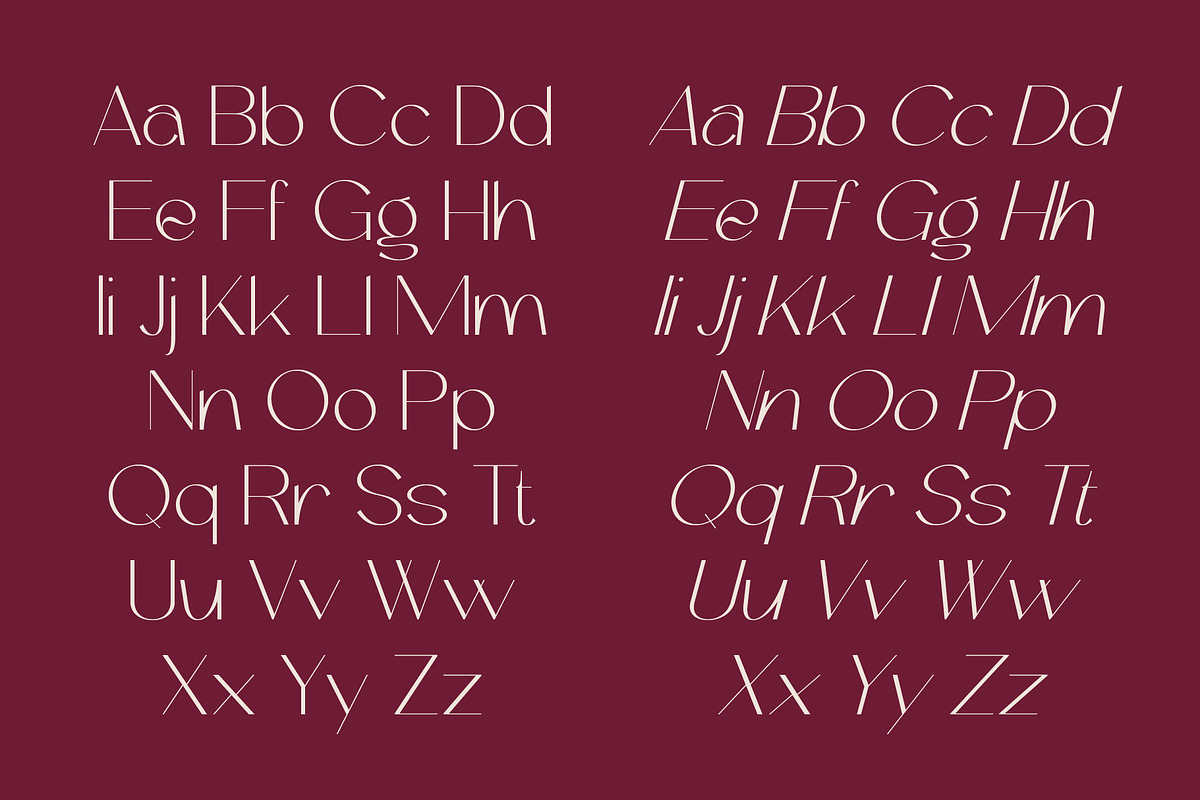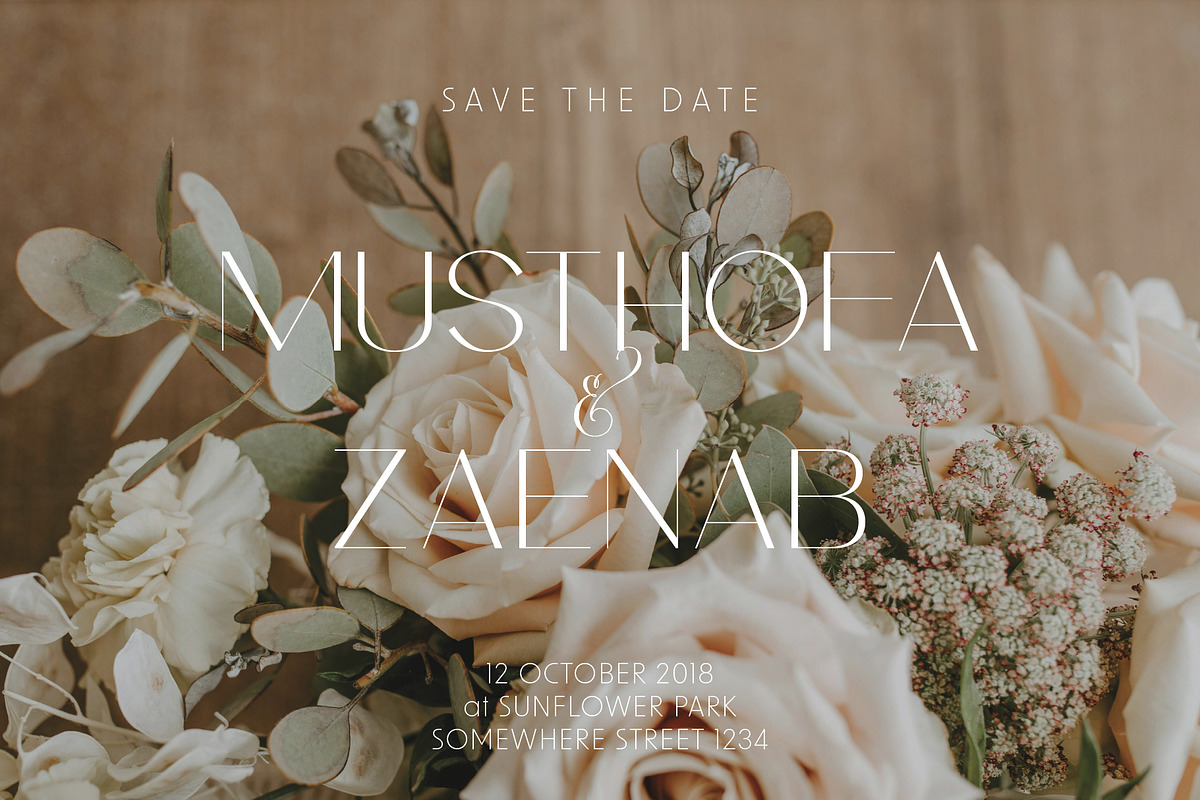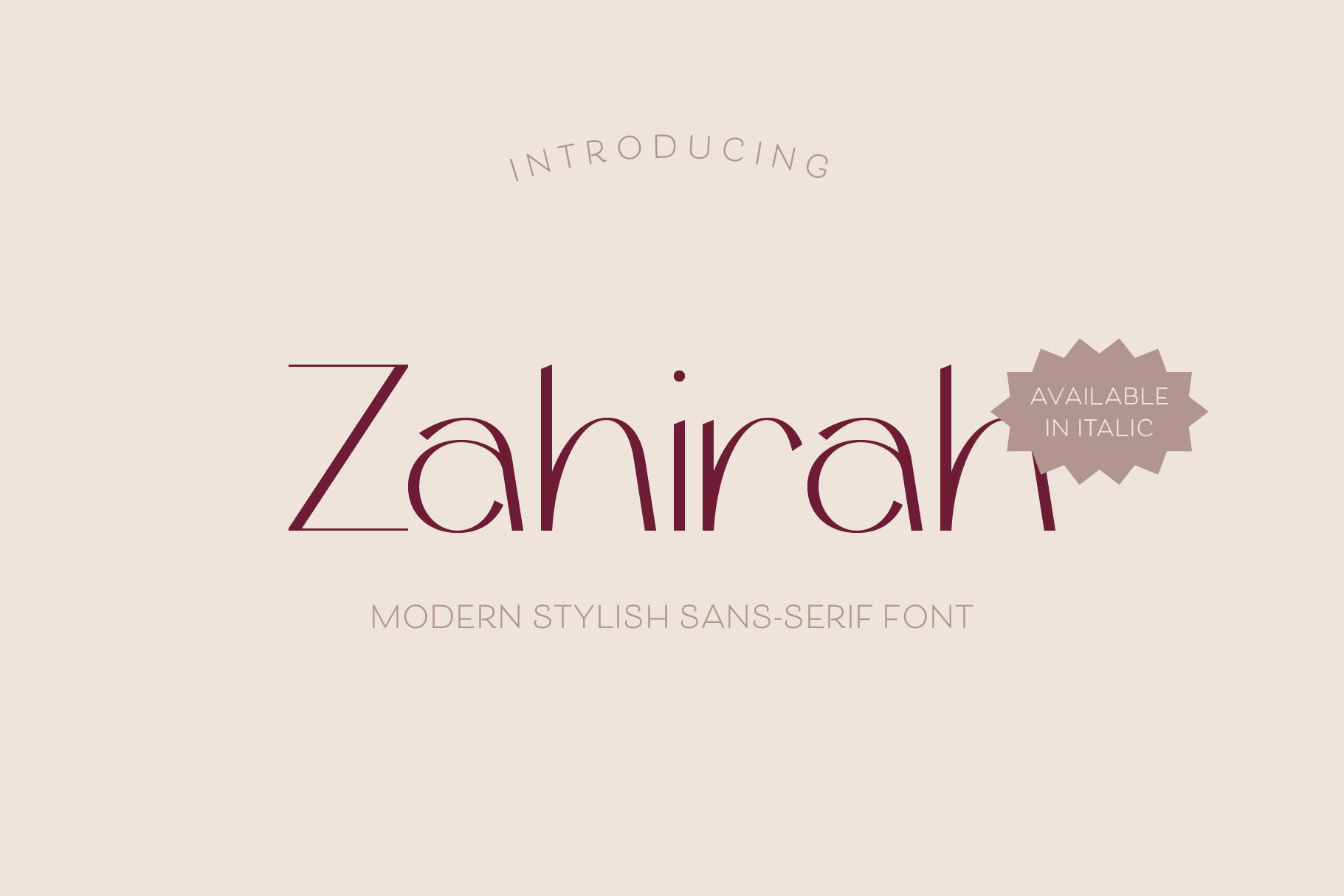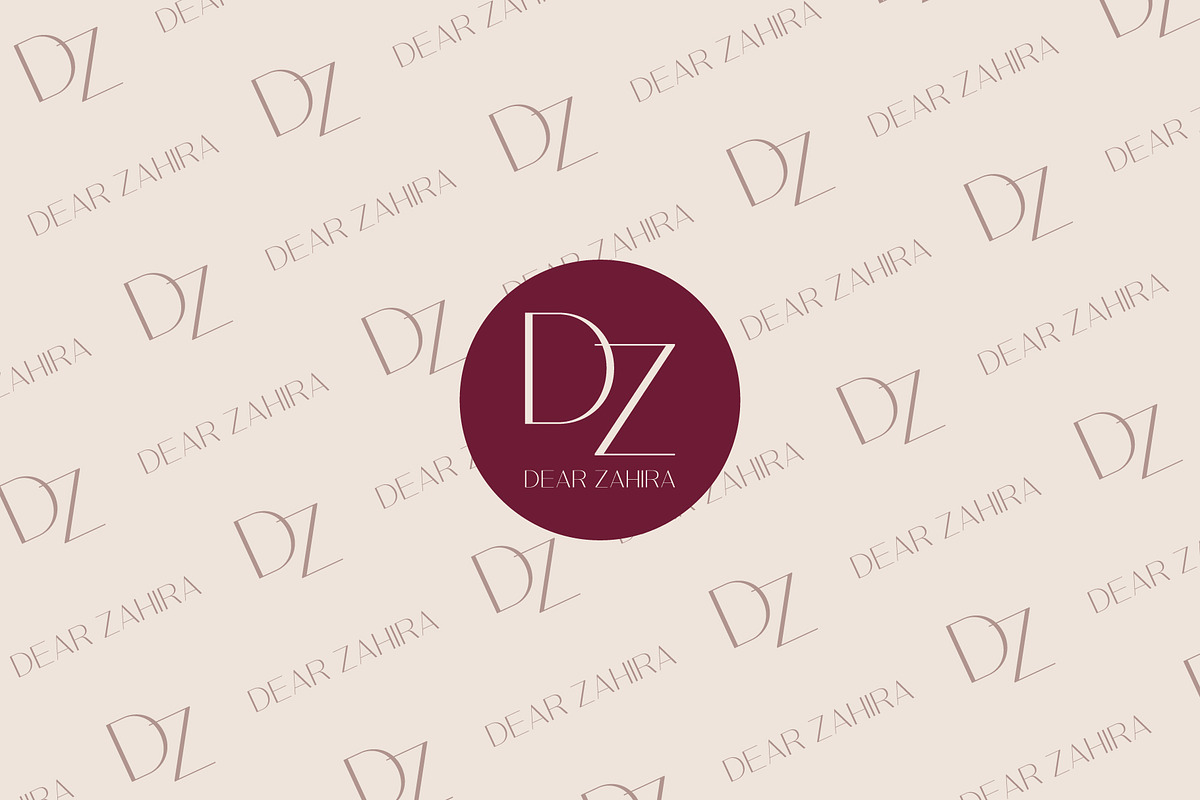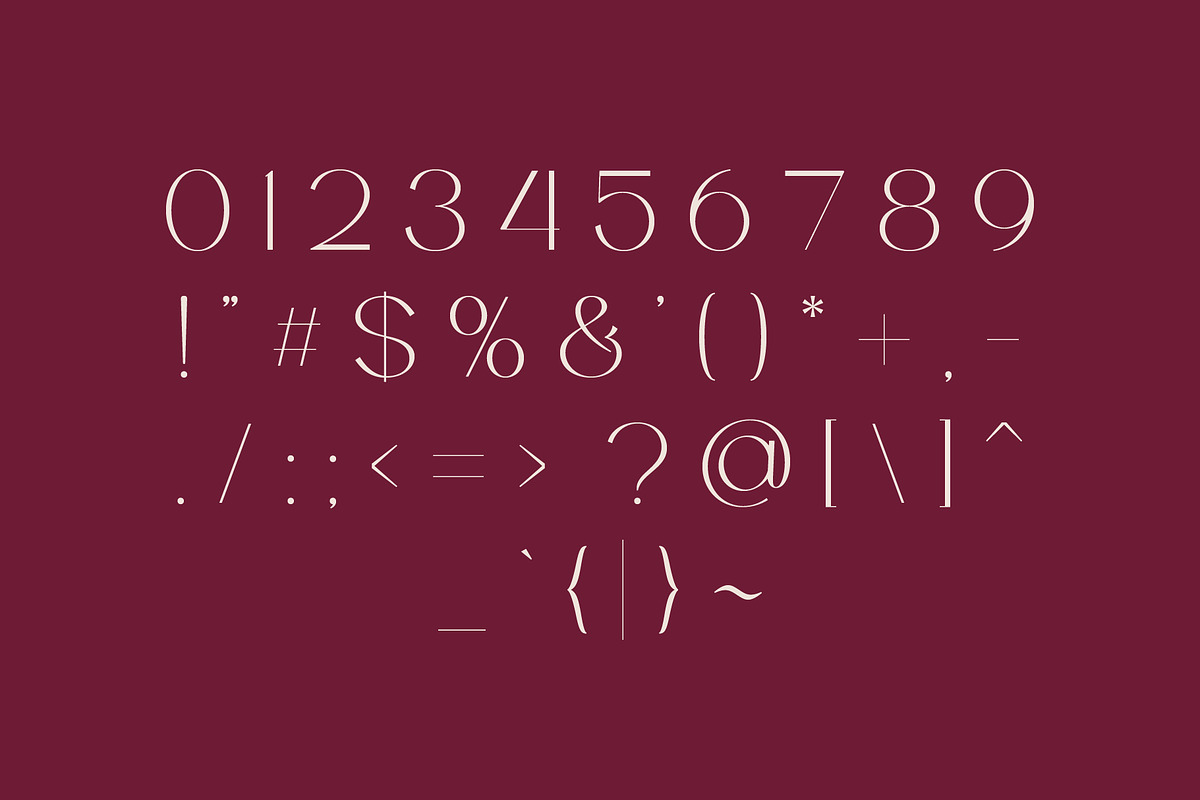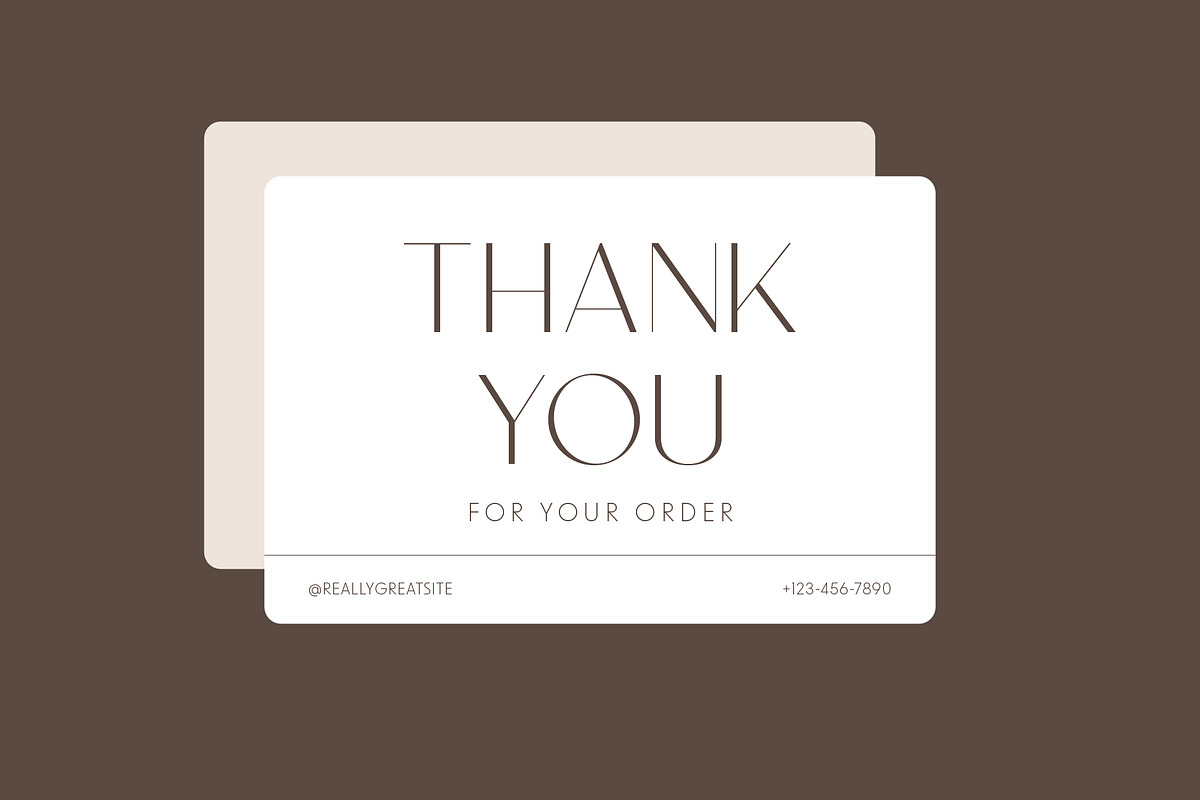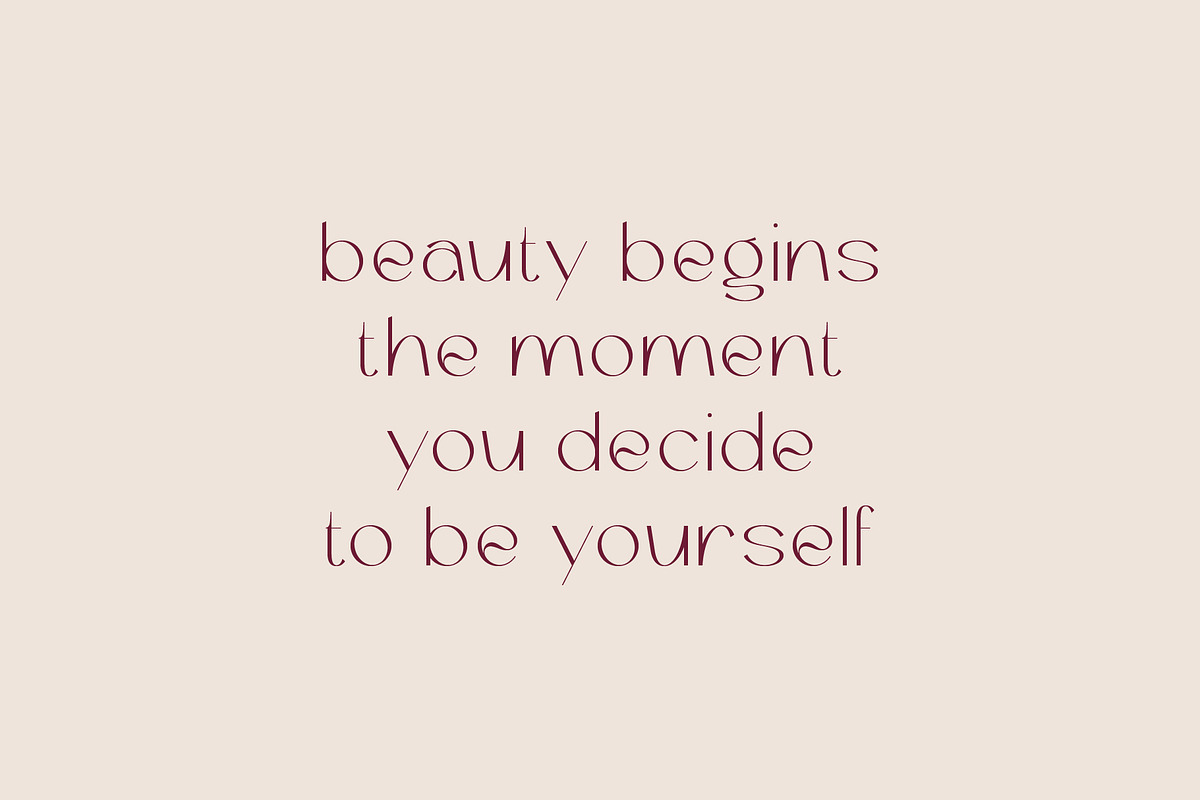
Zahirah - Elegant Sans Serif Font
Introducing Zahirah, the elegant and stylish sans serif font with beautifully thin lines that exude sophistication and charm. Perfect for designing luxurious and romantic projects, Zahirah is the ideal choice for fashion magazines, jewelry catalogs, wedding invitations, beauty products, and more. Its graceful and refined appearance captures the essence of elegance, making every design stand out with a touch of class.
Zahirah includes a complete set of alphabets, numbers, and basic punctuation, along with an italic version for each character, providing versatility and flexibility in your creative work. Whether you’re crafting a stunning magazine layout, an exquisite jewelry catalog, or a romantic wedding invitation, Zahirah adds a sense of luxury and style to your designs.